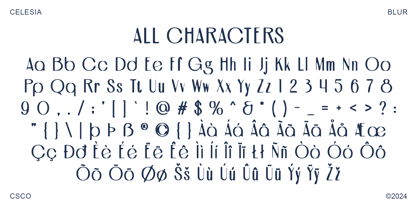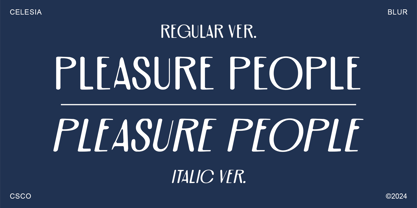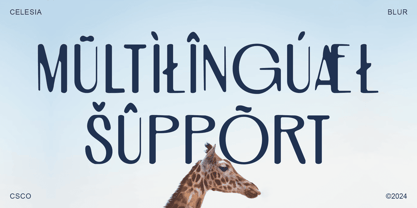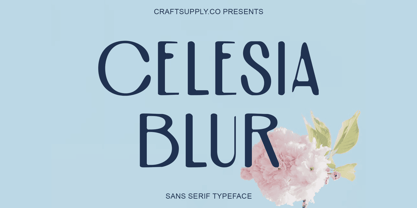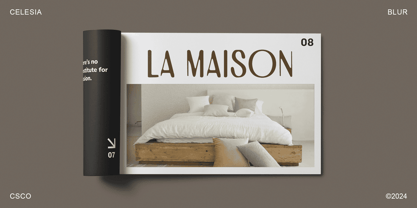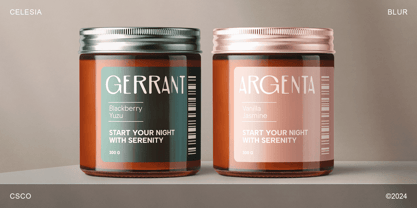
Celesia Blur
by Craft Supply Co
The Celesia Blur Font Family was designed by Trio Nazzar Saputra, Wahyu Hadi Yuana and published by Craft Supply Co. Celesia Blur contains 2 styles and family package options.
Celesia Blur: Redefining Modern Display Typography
Innovative Design for Contemporary Projects
Celesia Blur introduces a fresh perspective on modern typography with its innovative blend of a sans serif font and subtle blur effects. This font is meticulously crafted to offer a contemporary edge while maintaining readability and visual appeal.
Dynamic Blur Vibes for Captivating Designs
Experience the captivating allure of Celesia Blur’s blur vibes, adding a dynamic touch to your designs. The subtle blur effect infuses each character with movement and depth, making it perfect for grabbing attention in headlines, banners, and other display applications.
Tailored for Display Excellence
Crafted with display projects in mind, Celesia Blur excels in large sizes, ensuring maximum impact and legibility. Whether you’re designing posters, signage, or branding materials, this font’s modern aesthetic and unique blur effects will elevate your visuals to new heights.
Versatile and Impactful Typography
Despite its avant-garde appearance, Celesia Blur remains versatile and easy to integrate into a wide range of design projects. From digital interfaces to print media, its modern sans serif style and subtle blur vibes will infuse your creations with contemporary elegance and visual intrigue.